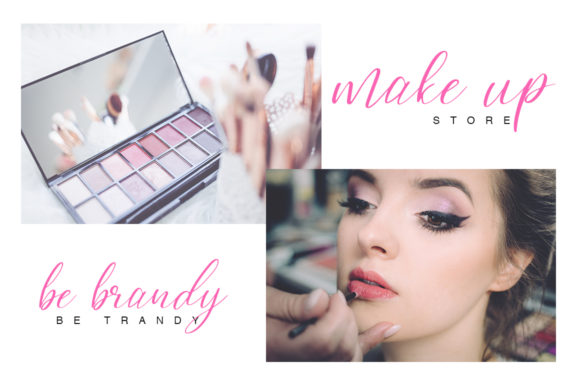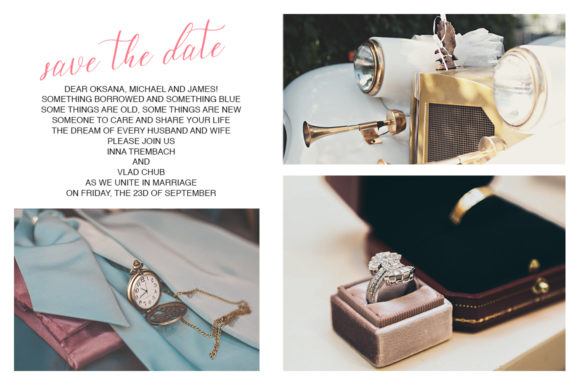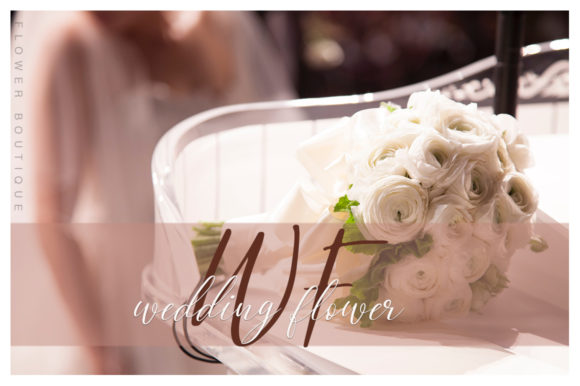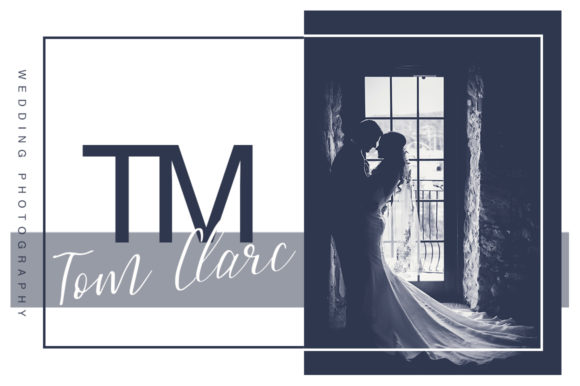
HomeScript FontsFelicita Font Script Fonts Felicita Font FacebookXPinterestWhatsApp Felicita Font Poster 2 Felicita Font Poster 3 Felicita Font Poster 4 Felicita Font Poster 5 About Felicita Font Felicita is a fresh and funky script that will turn any design project into a true piece of art. DOWNLOAD ON CREATIVE FABRICAThis font is sold and delivered by Creative Fabrica. Font Canyon may earn a commission if you buy through this link. People also explored Charming Font Welcome Summer Font Sathela Font Happy Dance Font Welcome Farmhouse Font Asther Font Bereza Font Lovegame Font Primitivly Font 403 0 TagsFelicita Font Previous articleSilvia One Love FontNext articleHome Sweet Home Font LEAVE A REPLY Cancel reply Comment: Please enter your comment! Name:* Please enter your name here Email:* You have entered an incorrect email address! Please enter your email address here Website: Save my name, email, and website in this browser for the next time I comment. Personal Use Free Sarwendah Personal Use Free Read more about this font Still Time Personal Use Free Read more about this font Awesome Snowflakes Font Personal Use Free Read more about this font Breakaway Personal Use Free Read more about this font BLOG Best Fonts for YouTube Videos: Make Your Thumbnails Stand Out Best Fonts for YouTube Videos: Make Your Thumbnails Stand Out Choosing the right font can make a massive difference in how your YouTube videos perform.... Transform Your Website: Elevate Your Typography with 7 Best Web Font Generators Elegant Wedding Invitation Fonts – Handwritten & Script Fonts The 10 Best Handwriting Fonts to Add Personality to Your Designs